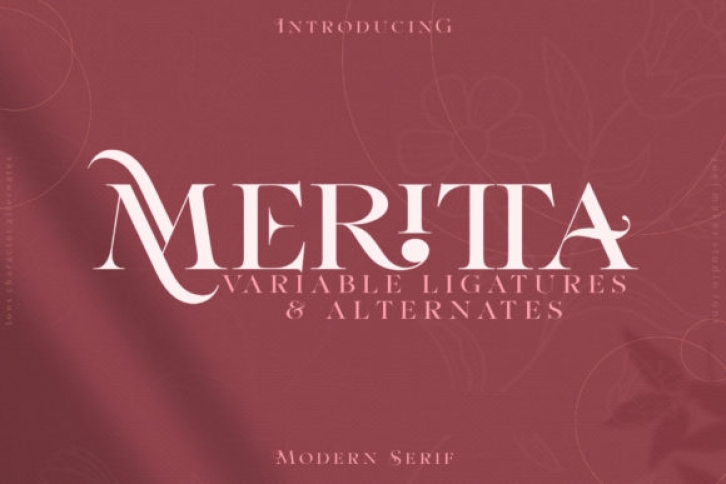
Meritta is a stylish and incredibly elegant serif font. It looks stunning on wedding invitations, thank you cards, quotes, greeting cards, logos, business cards and every other design which needs a handwritten touch.